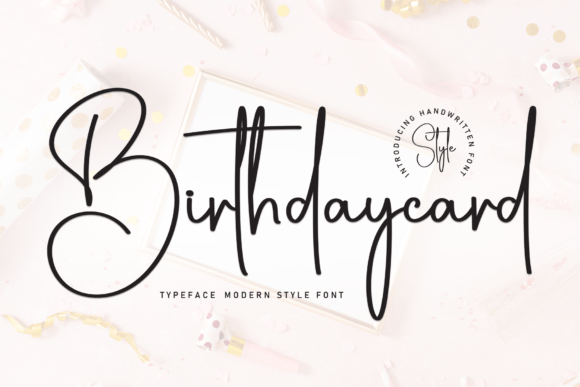
Welcome to the world of Birthdaycard Font, a captivating and elegant script font that will leave you spellbound. Designed with precision and creativity, Birthdaycard is a versatile font that seamlessly blends beauty with functionality. Immerse yourself in its flowing curves, delicate strokes, and picturesque details that evoke a sense of romance and sophistication.
This remarkable font family offers a variety of weights and styles, ensuring you have the perfect font for any creative project. Whether you're crafting a heartfelt greeting card, designing a stunning logo, or adding a touch of elegance to your social media posts, Birthdaycard has you covered. Its captivating aesthetic adds a touch of charm and personality to any project, making it a true standout among script fonts.
With Birthdaycard, you can effortlessly transform your creative visions into reality. Its versatility allows you to explore a world of creative possibilities, from heartfelt invitations to enchanting posters. Its stunning appearance commands attention, leaving a lasting impression on your audience. As a result, Birthdaycard is the ideal choice for designers, artists, and creative professionals seeking a font that embodies elegance and sophistication.
Birthdaycard is more than just a font; it's an expression of creativity and artistry. Its intricate design and graceful strokes evoke a sense of nostalgia and timeless beauty. It's the perfect choice for projects that require a touch of elegance and a hint of vintage charm.